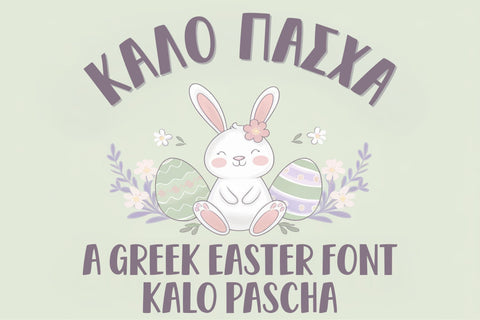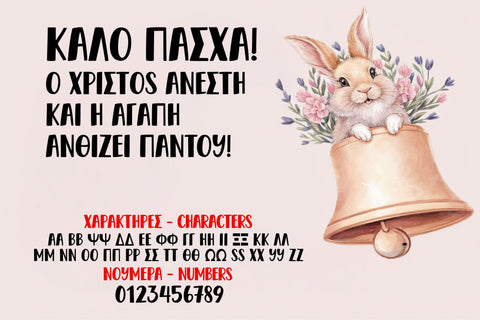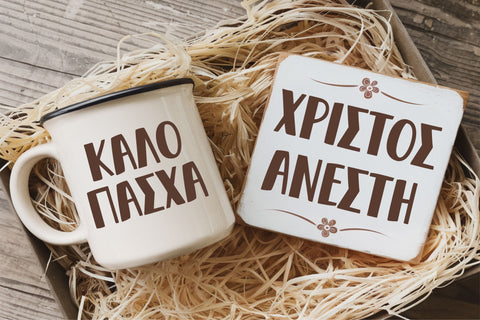
Celebrate Easter with the joyful Kalo Pascha Greek Easter font! Featuring playful, rounded letters with a hand-drawn touch, this font is perfect for Orthodox Easter designs, kids crafts, Christian cards, t-shirts, mugs, and more. Add Greek charm to your projects with this unique and friendly typeface. Great for printables, stickers, or papercraft, this font brings faith and fun together in one sweet design. Compatible with Cricut, Silhouette, and all major design software.